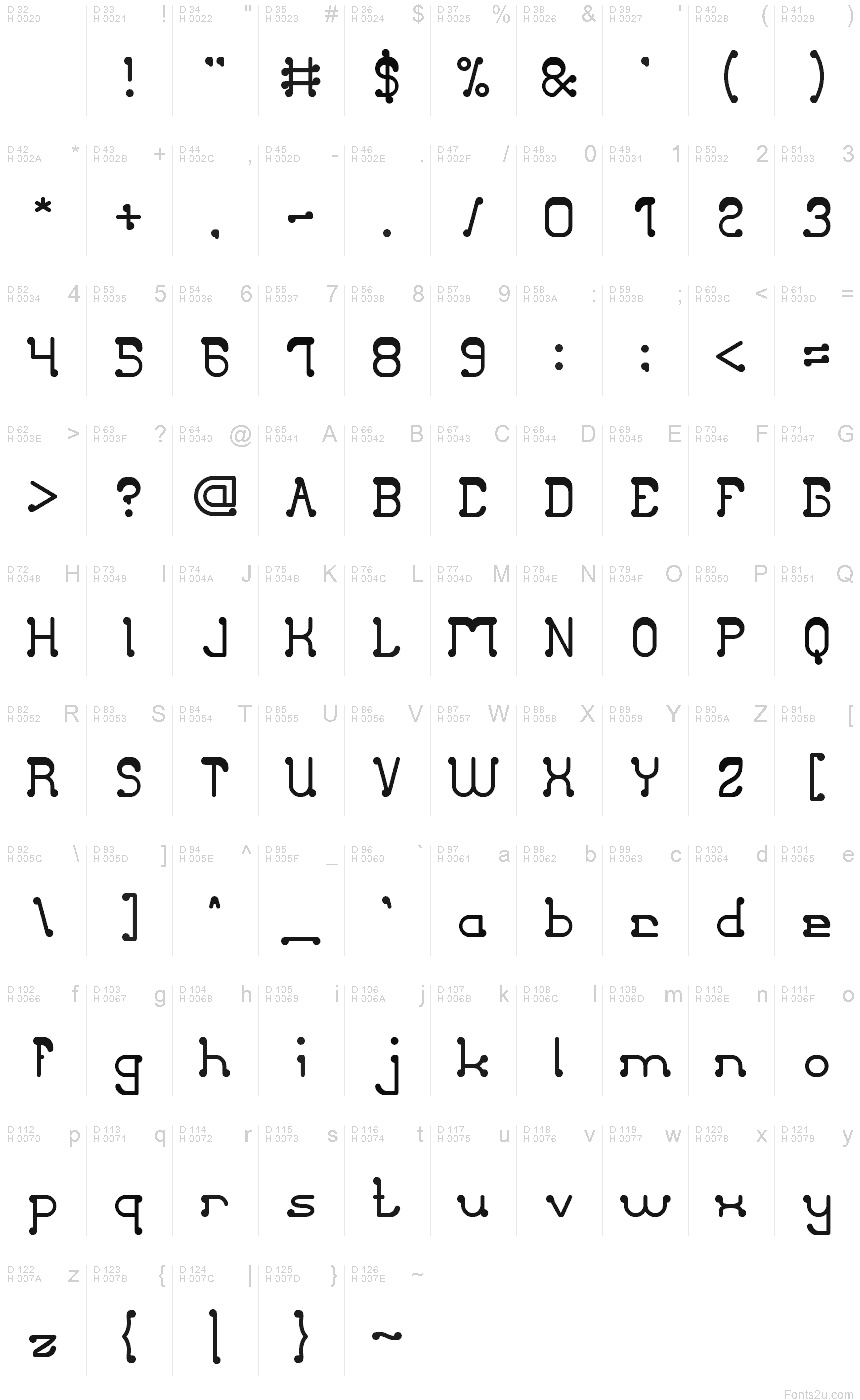
Club Golf by Weknow is a free novelty display font whose slender strokes end in rounded knobs and hooked club-like shapes. The lettering keeps a mostly even weight, with broad curves, narrow uprights, and playful changes of width that make the forms jaunty and unmistakably sport-themed.
It can turn a tournament title into part of the sporting imagery. That role fits event posters, clubhouse signage, golf merchandise, and casual apparel, especially for local community charity outings and recreational golf brands that want a cheerful sporting equipment motif built directly into their lettering.